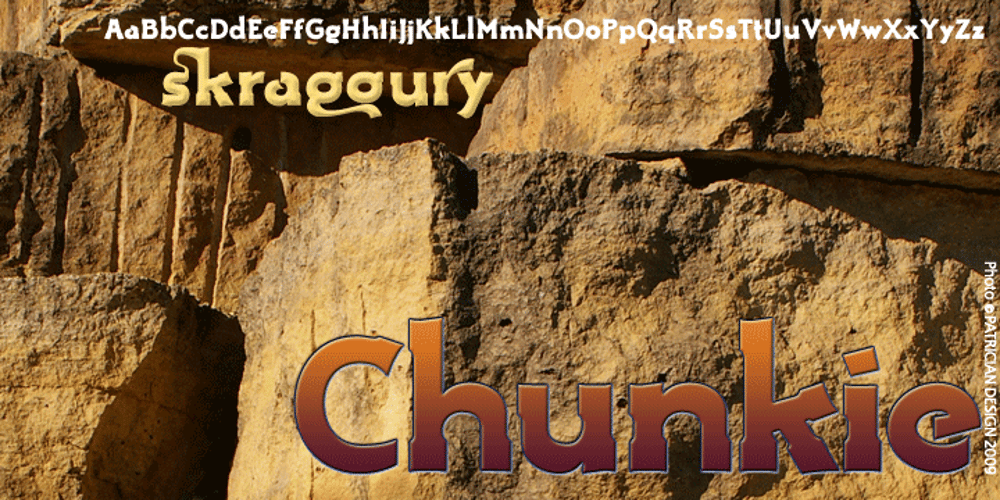
Chunkie
Chunkie font
Chunkie Font Family was designed by David Bergsland and published by Hackberry Font Foundry. Chunkie contains 1 styles and family package options. Chunkie is a simple serif experiment going for minimal width and maximum height. I made it into my display version of OpenType Pro, but mainly it was a vehicle for me to try out some more extreme serif ideas and glyph shapes. The solutions for the lowercase a and e are unique, for example. The double g ligature is a fun solution. I like the solution for the @, but I’m not sure how it will be received. That being said, it turned into a useful dark display face with a small x-height.